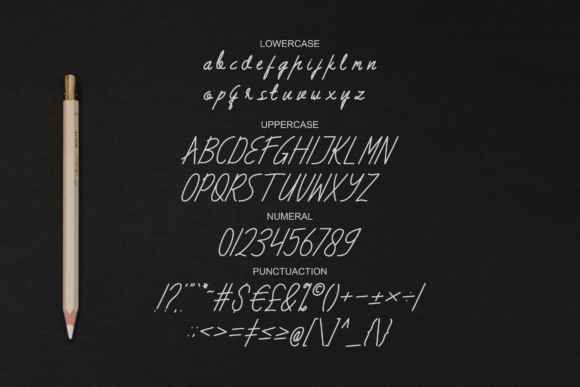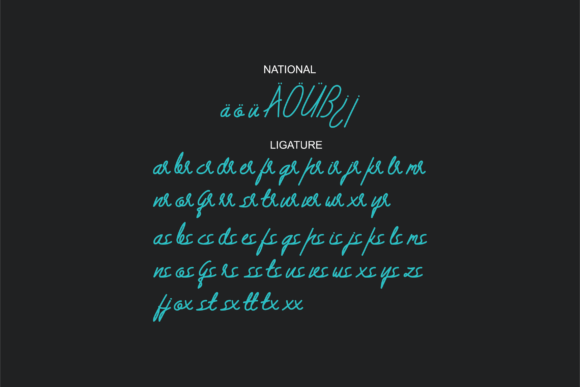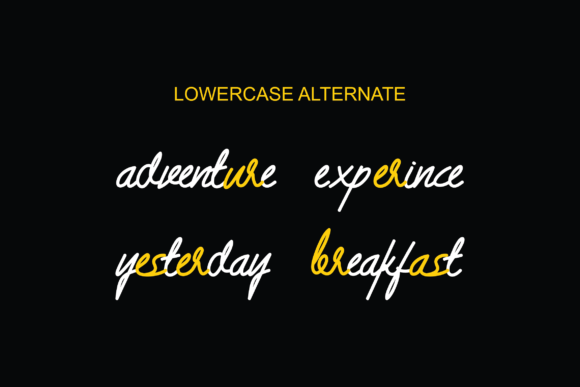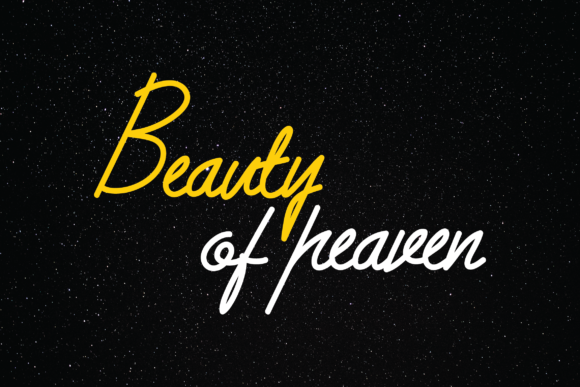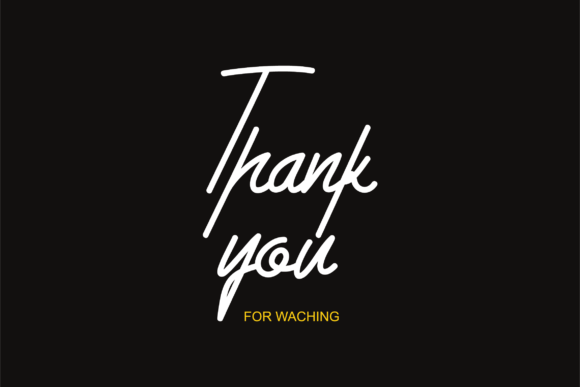
Unleashing the Charm of Vintage Design
Have you ever stumbled upon an old, worn-out notebook in a thrift store, only to be captivated by the beautiful, handwritten script within? That’s the magic of vintage design, and it’s exactly what the Bavillia Font brings to your creative projects. This charming hand-lettered font is a masterclass in elegance and sophistication, perfect for adding a touch of nostalgia to your designs.
As a designer, you know the importance of a well-crafted font in setting the tone for your project. The Bavillia Font is more than just a pretty face – it’s a valuable tool in your design arsenal, offering great readability and a unique aesthetic that’s sure to leave a lasting impression. Whether you’re working on a logo, branding project, or artistic design, this font is sure to elevate your work to the next level.
Bavillia Font Key Features
- Font Family: Bavillia, Bavillia Bold, Bavillia Italic, Bavillia Bold Italic
- Unique Characteristics: Bavillia is a modern, elegant script font with a unique blend of calligraphic and digital elements, making it ideal for creative projects, branding, and advertising.
Bavillia Font Review
I recently had the chance to work with the Bavillia Font, and I have to say, it’s a mixed bag. ✨ On the plus side, this font is incredibly versatile and can be used for a wide range of projects, from elegant wedding invitations to modern business presentations.
Here are some specific things that I think work well:
- ✨ Elegant and refined feel: The Bavillia Font is perfect for any project where you want to convey a sense of sophistication and class.
- ✨ Highly customizable: With over 1,000 characters and 18 font styles to choose from, you can easily create a unique look that suits your brand or design.
- ✨ Easy to read: The clear and concise design of the Bavillia Font makes it easy to read and understand, even at small font sizes.
However, I do have some reservations about this font:
- ⚠️ Limited character set: While the font has a large number of characters, it still falls short of some other fonts in this regard.
- ⚠️ May not be suitable for casual use: The elegant and refined feel of the Bavillia Font may not be the best fit for more casual or playful projects.
Overall, I think the Bavillia Font is a solid choice for designers who need a high-quality, versatile font for a wide range of projects. However, it may not be the best fit for every design scenario.
Tips for Getting the Most Out of Bavillia Font
Use Bavillia Font to create elegant and sophisticated designs that stand out from the crowd.
Pair Bavillia Font with other elegant fonts to create a cohesive and professional look.
Experiment with different font sizes and colors to add visual interest to your designs.
Compared to Bavillia Font, Playfair Display has a more formal and traditional feel, while Bavillia Font has a more modern and minimalist aesthetic. Playfair Display is also more suitable for longer blocks of text, as it is more legible and easier to read.